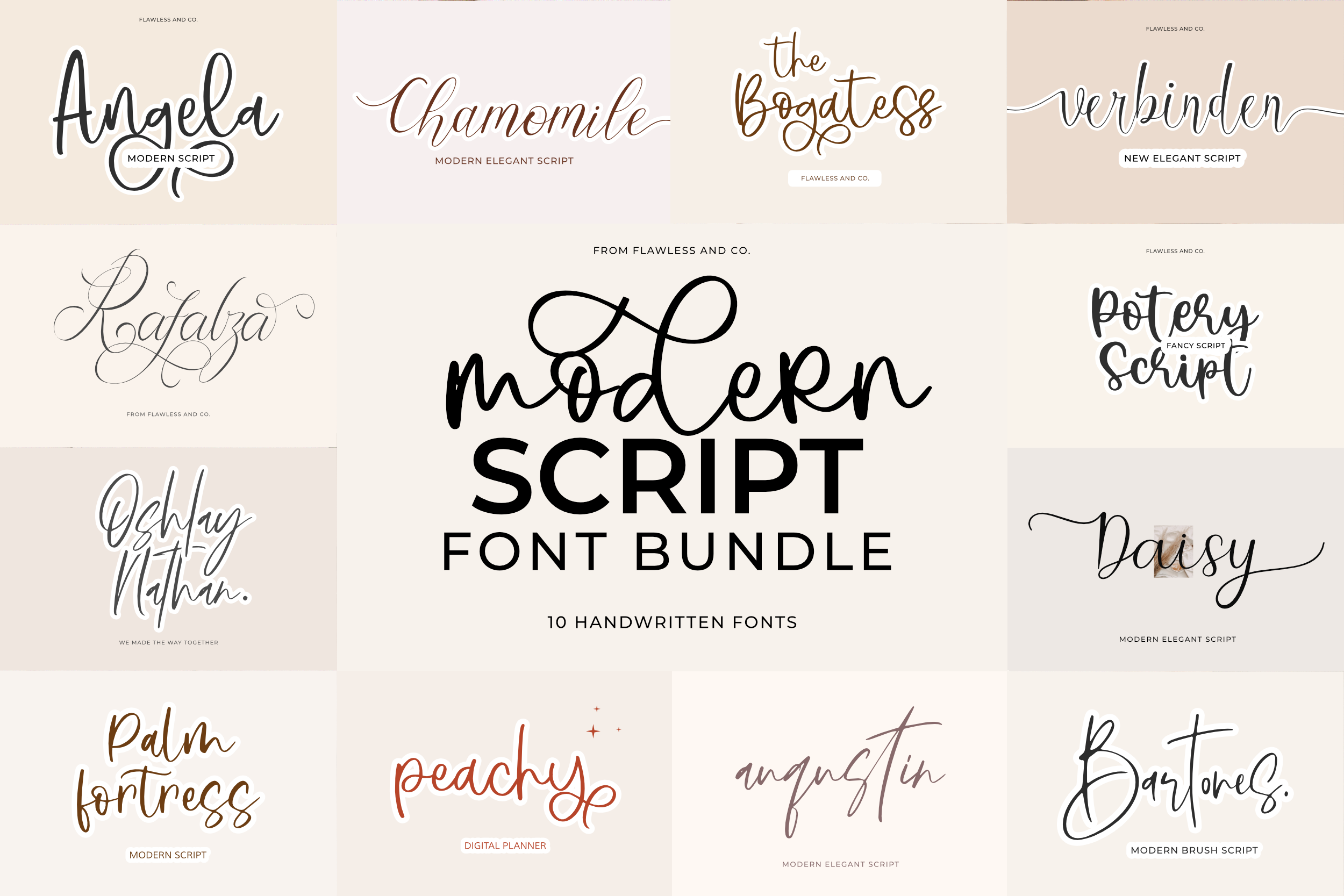
Modern Script Font Bundle
This bundle include 10 high quality script font,this style gives a feel of Girly, modern, Suitable for any graphic designs such as branding materials, t-shirt, print, business cards, logo, poster, t-shirt, photography, quotes .etc
- Potery Script (OTF,TTF)
- Hello Angela (OTF,TTF)
- Palm Foretress (OTF,TTF)
- Bogatess (OTF,TTF)
- Augustin (OTF,TTF)
- Bartones (OTF,TTF)
- Daisy (OTF,TTF)
- Verbiden (OTF,TTF)
- Chamomile (OTF,TTF)
- Rafalza (OTF,TTF)
NOTE !!! peachy preview on above use ---- The bogattes Oshlay Nathan use ----- Augustin font
Multilingual Uppercase alphabet A-Z Lowercase alphabet a-z Alternate Character Numbers 0-9 Some punctuation